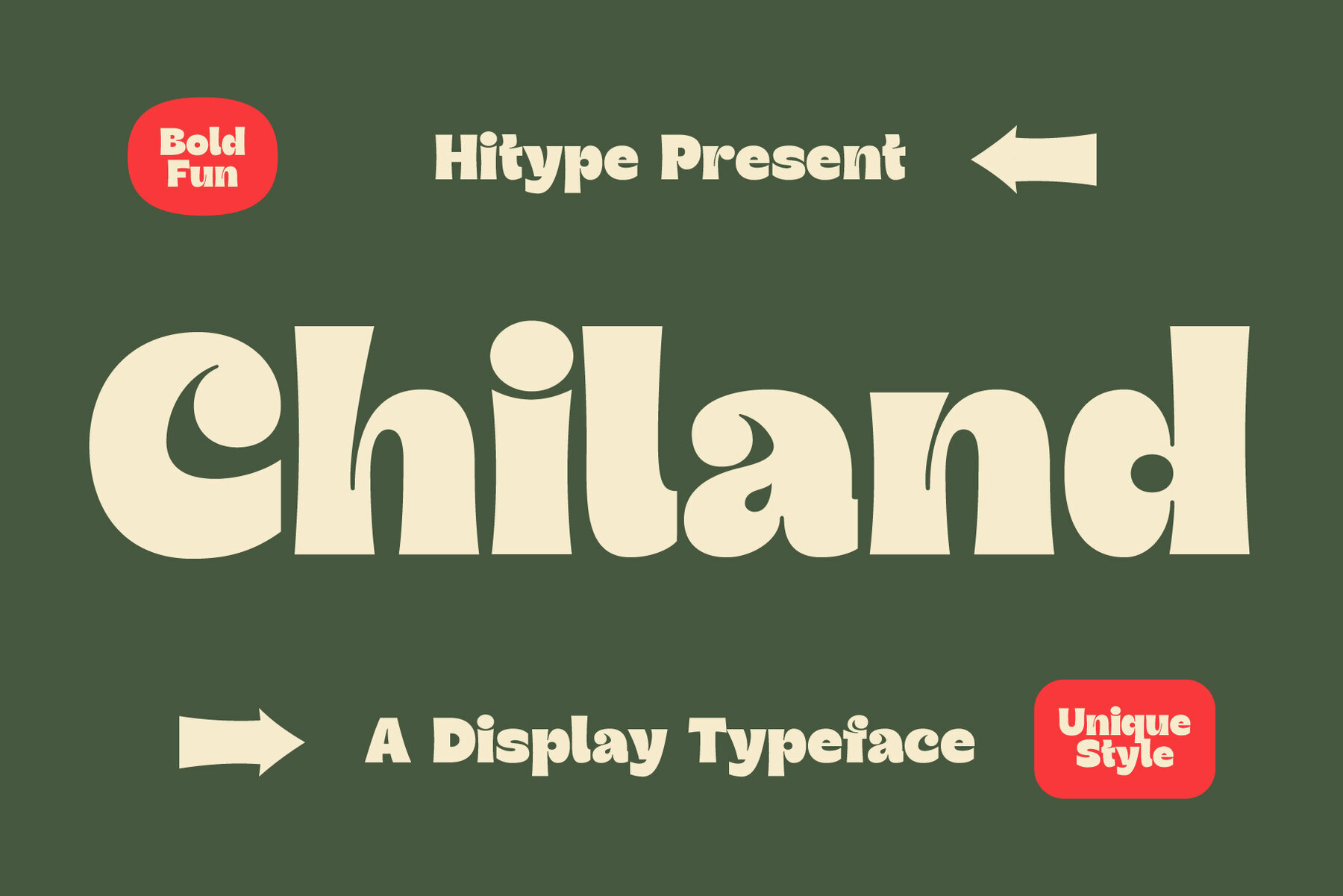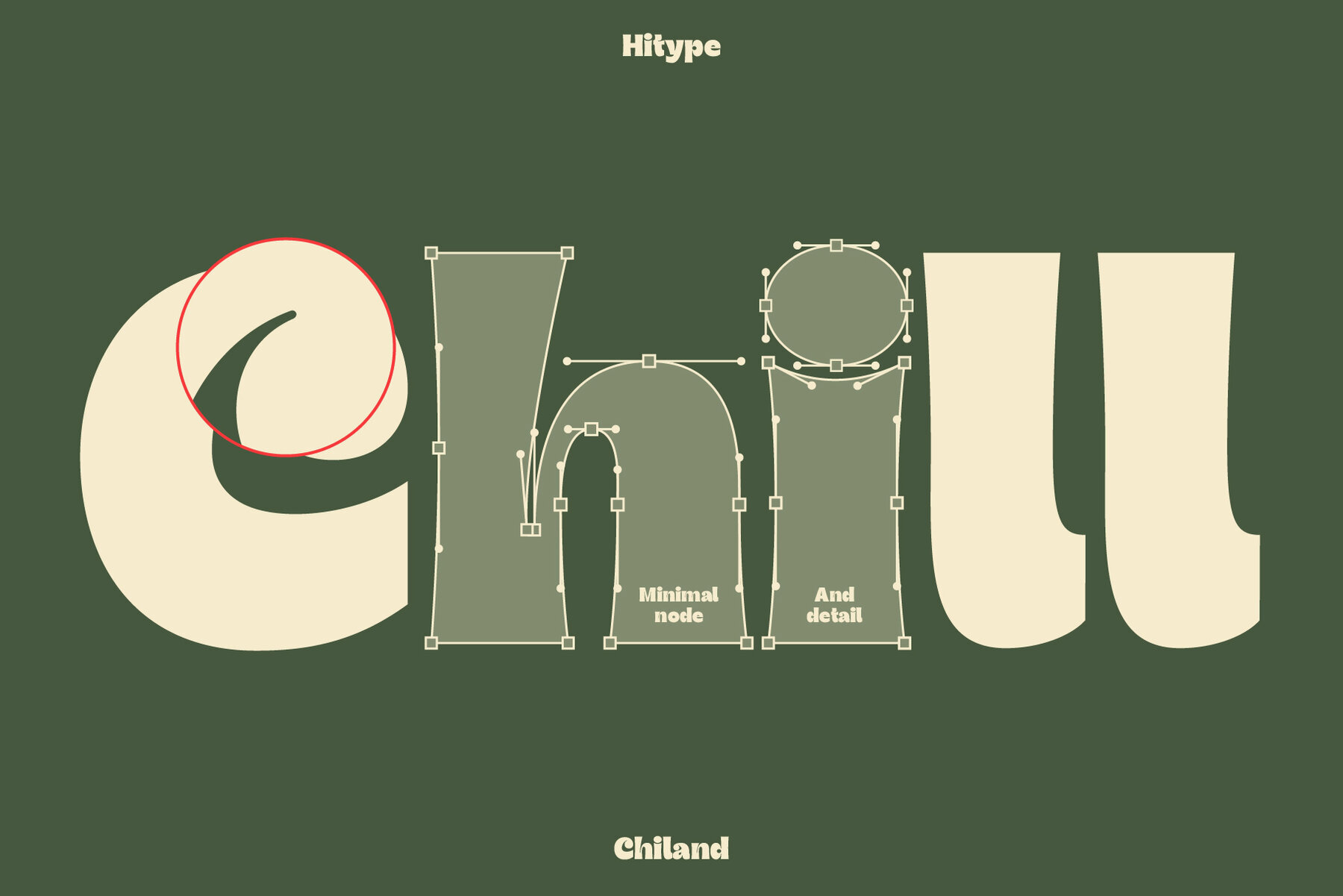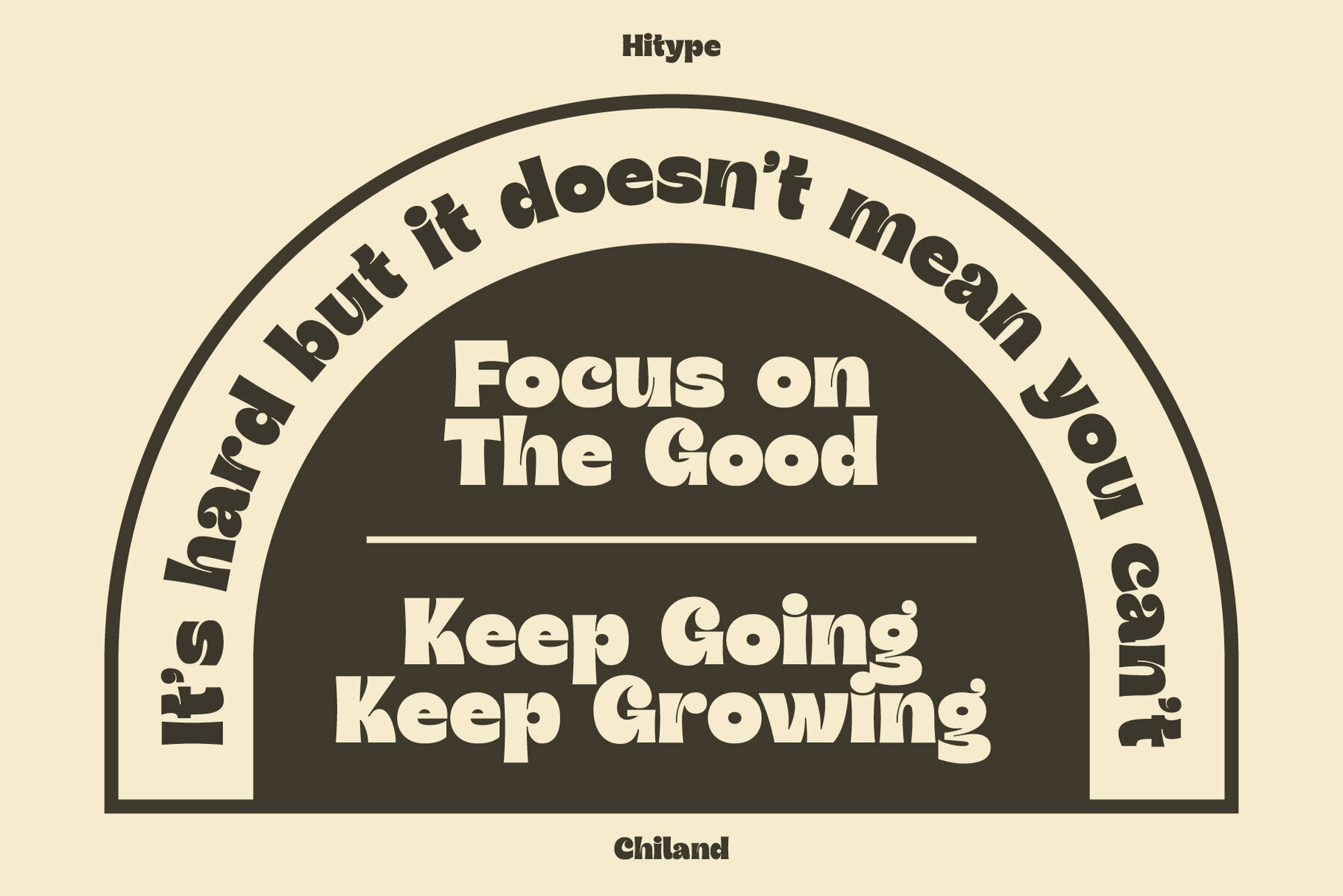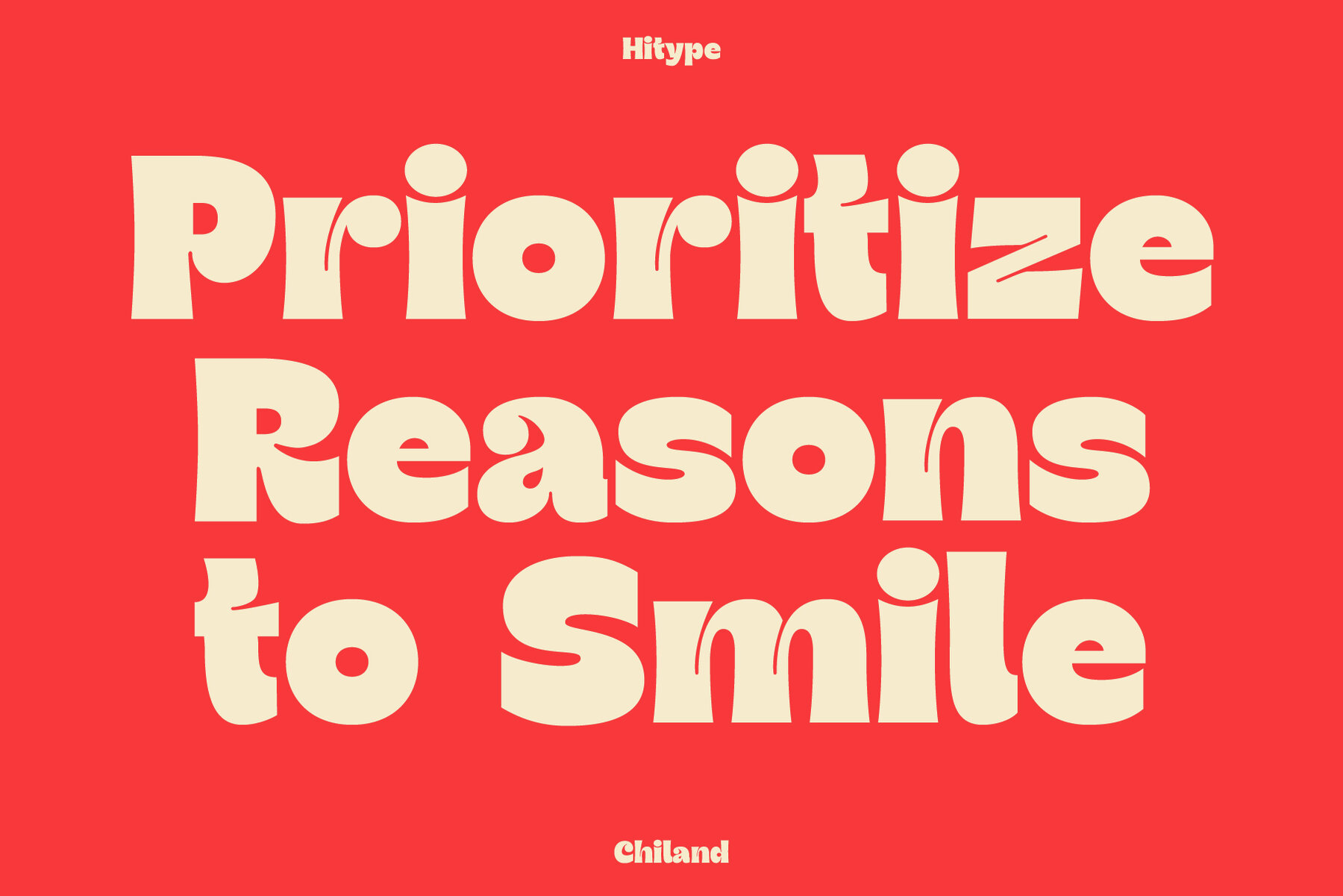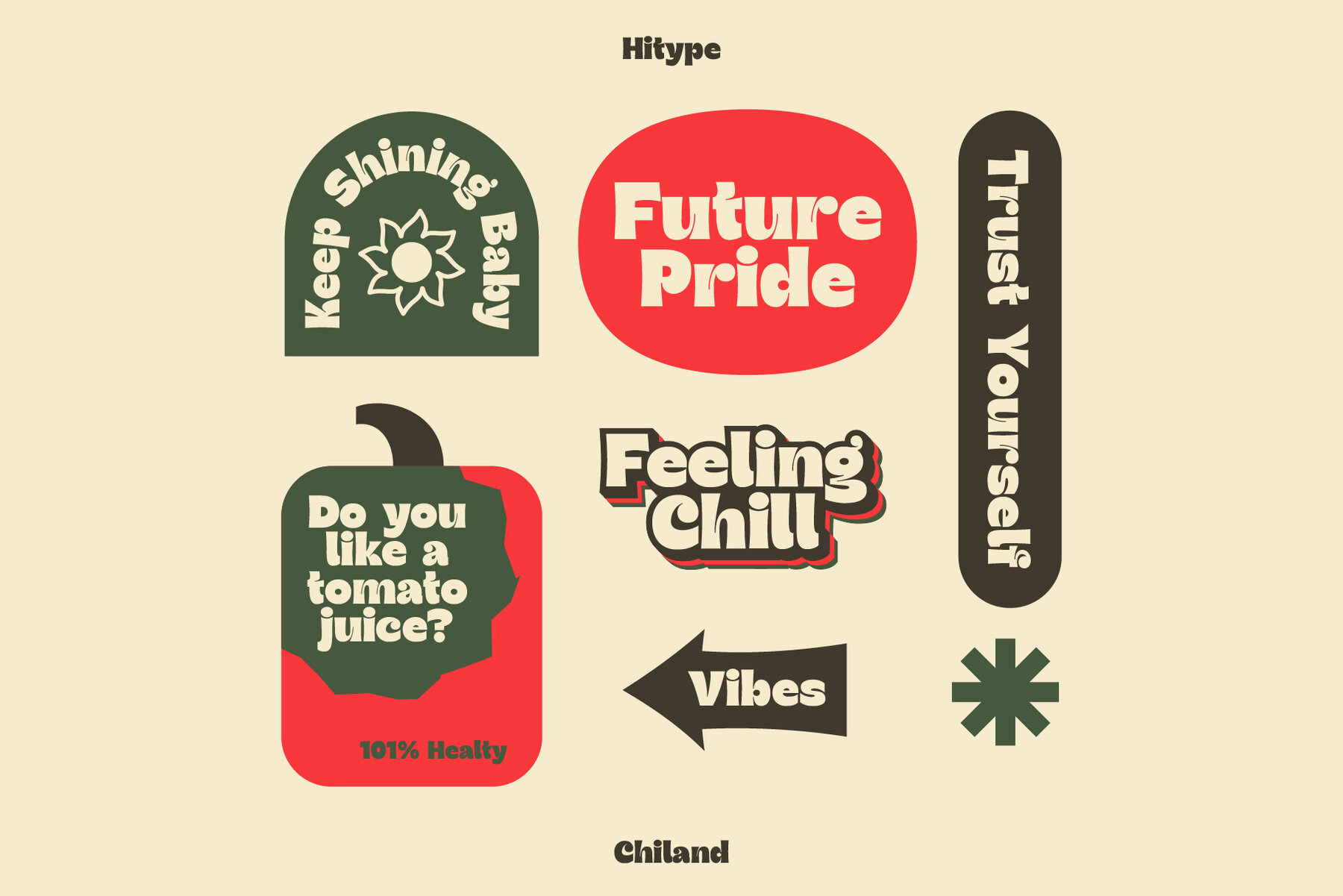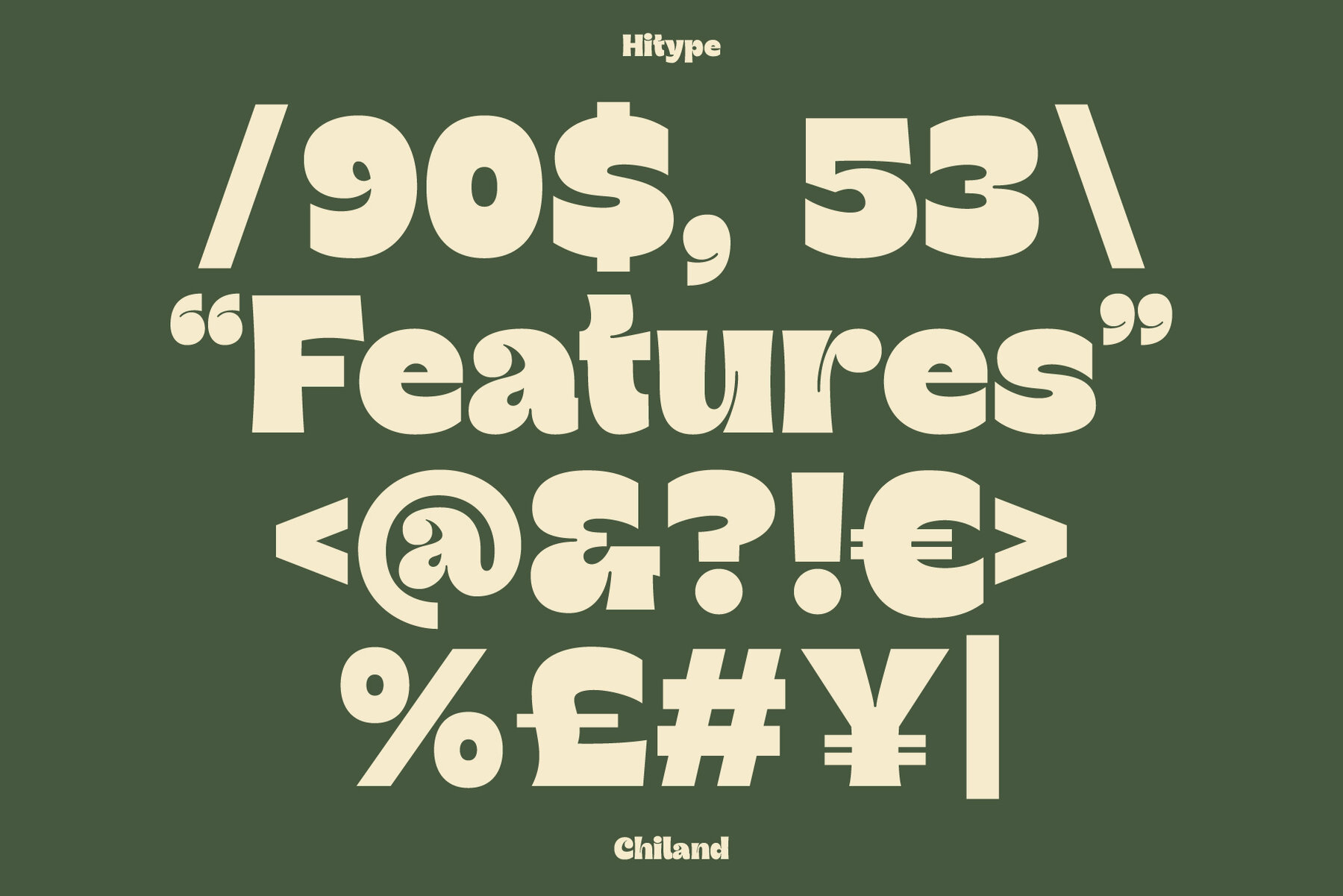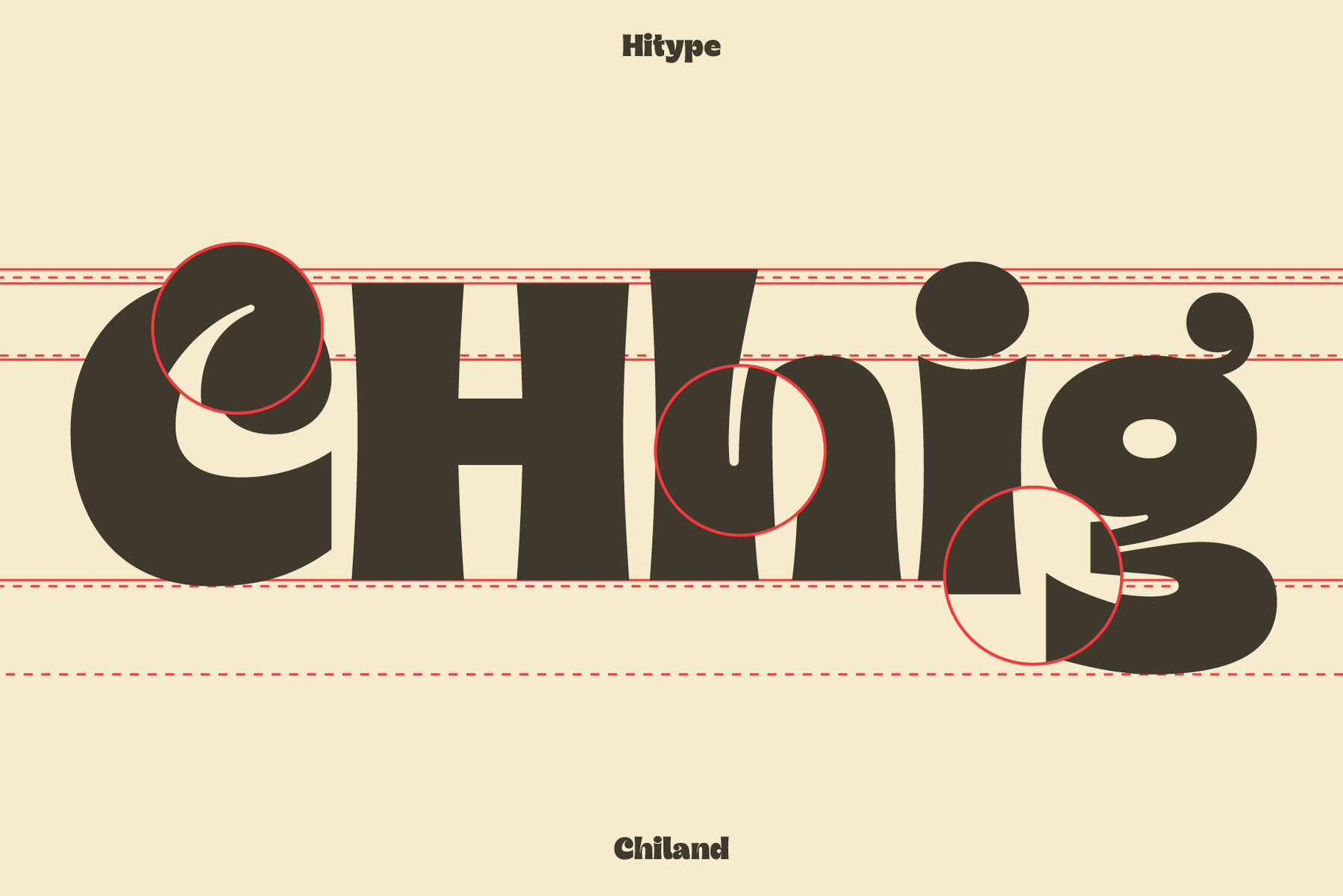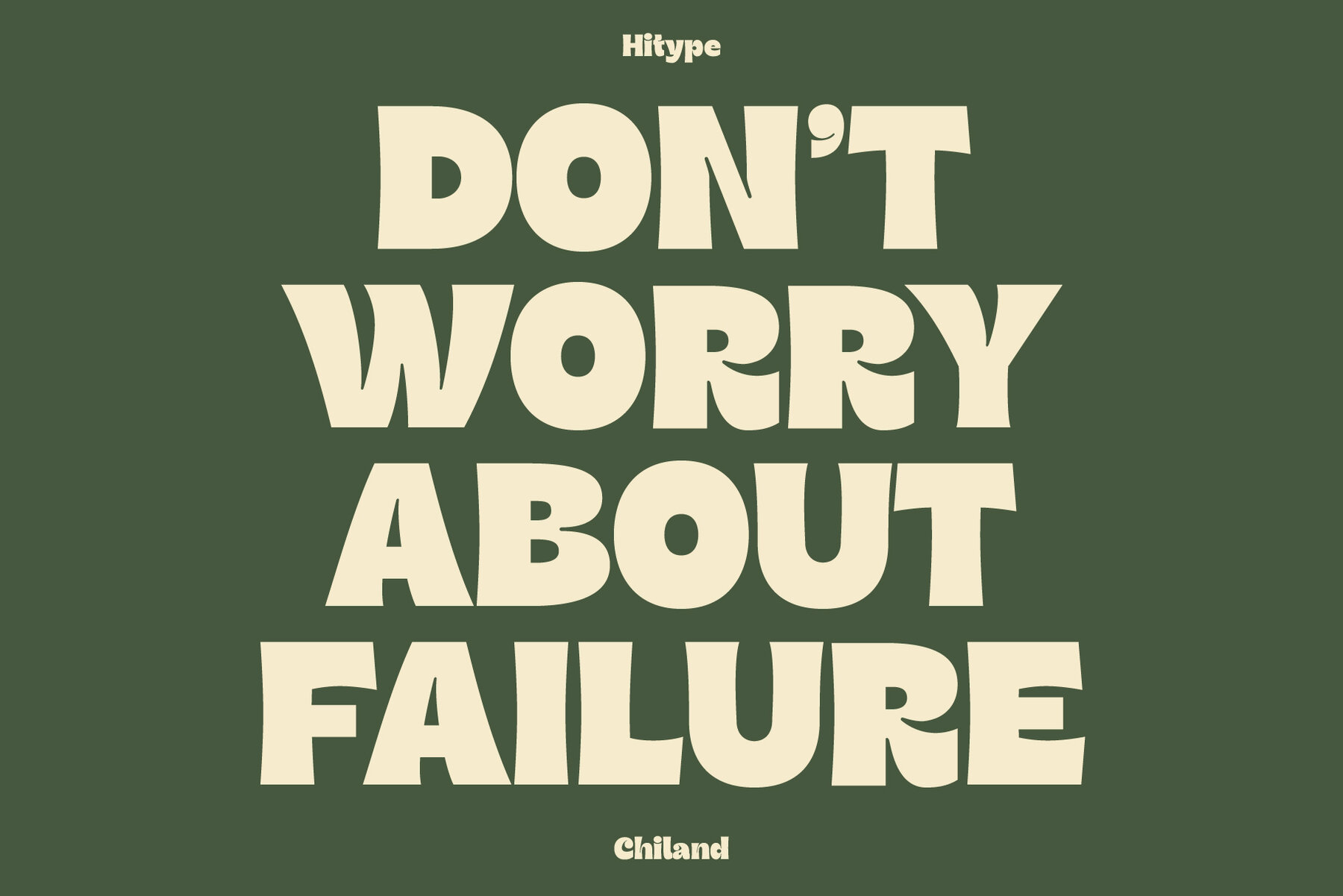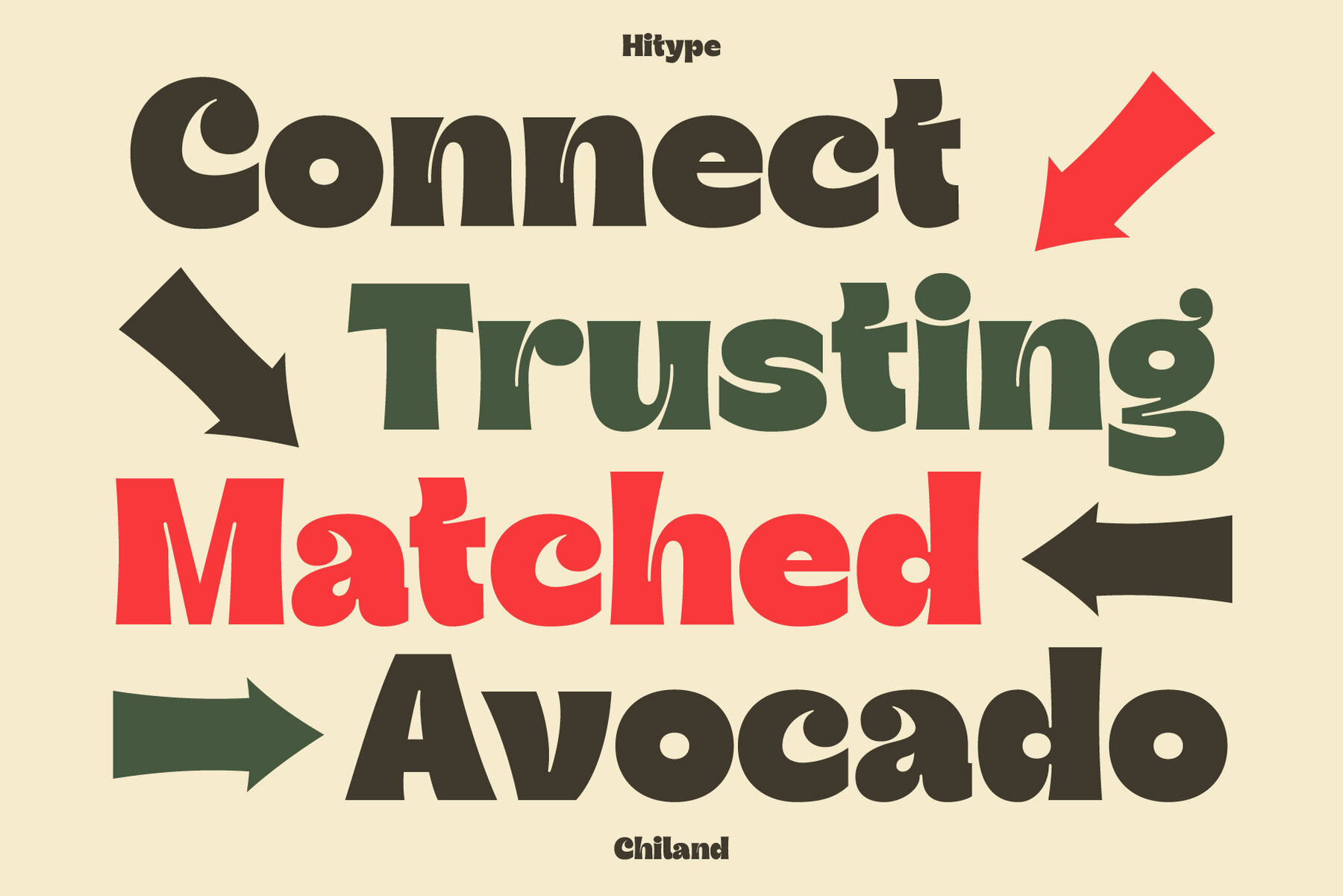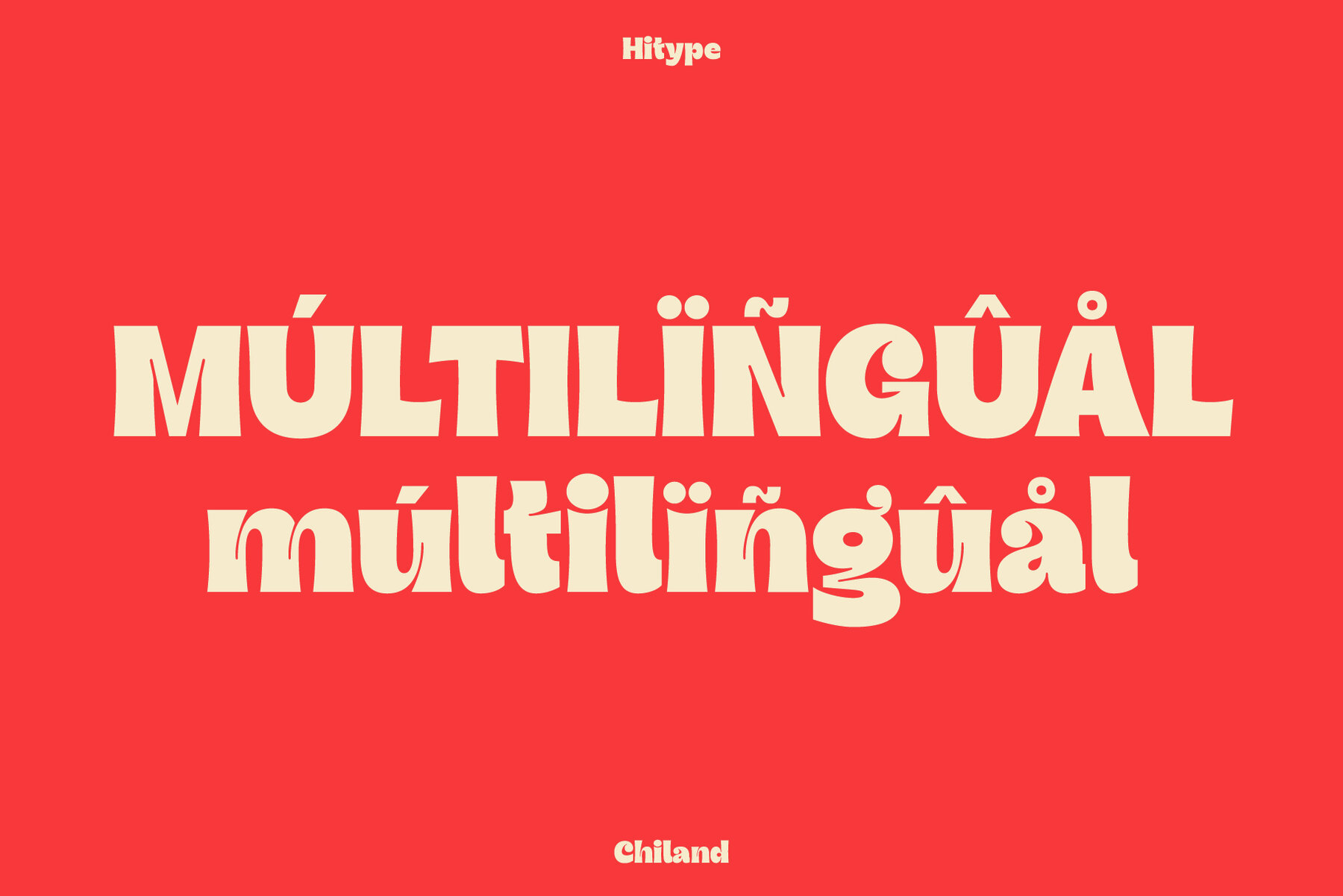
Chiland
A bold and playful display typeface, Chiland boasts quirky curves and a distinctive personality. Ideal for branding, packaging, posters, logos, and designs that wish to exude fun and creativity. This typeface channels retro-inspired charm and infuses energy and character into both digital and print projects.Chiland: A Playful Display Typeface